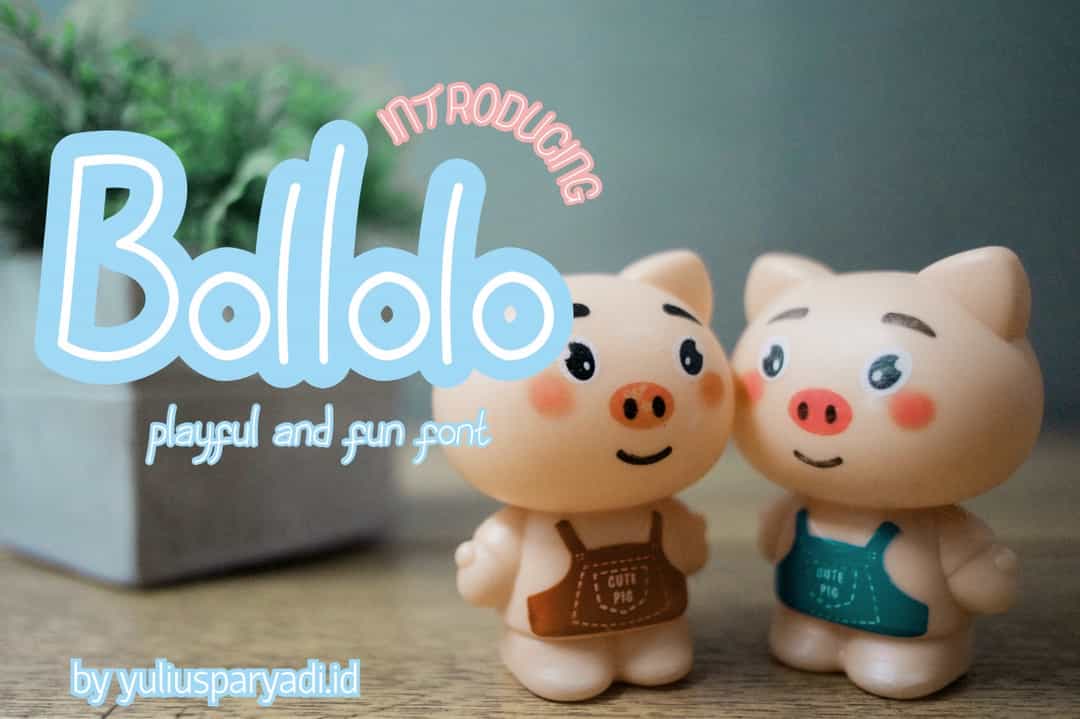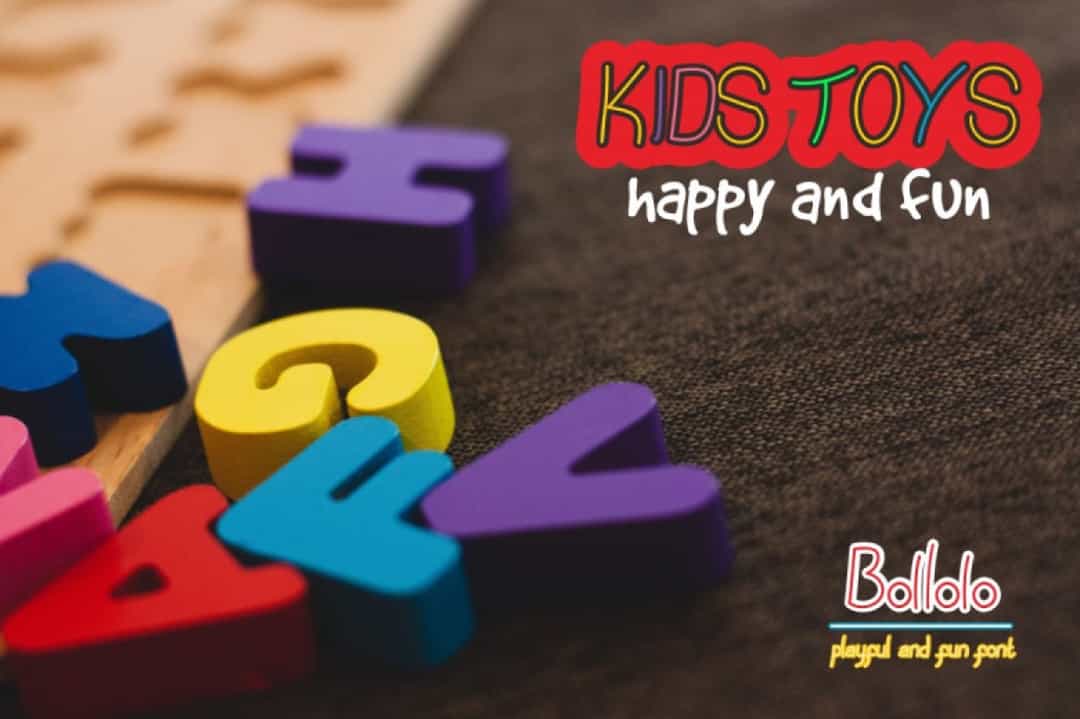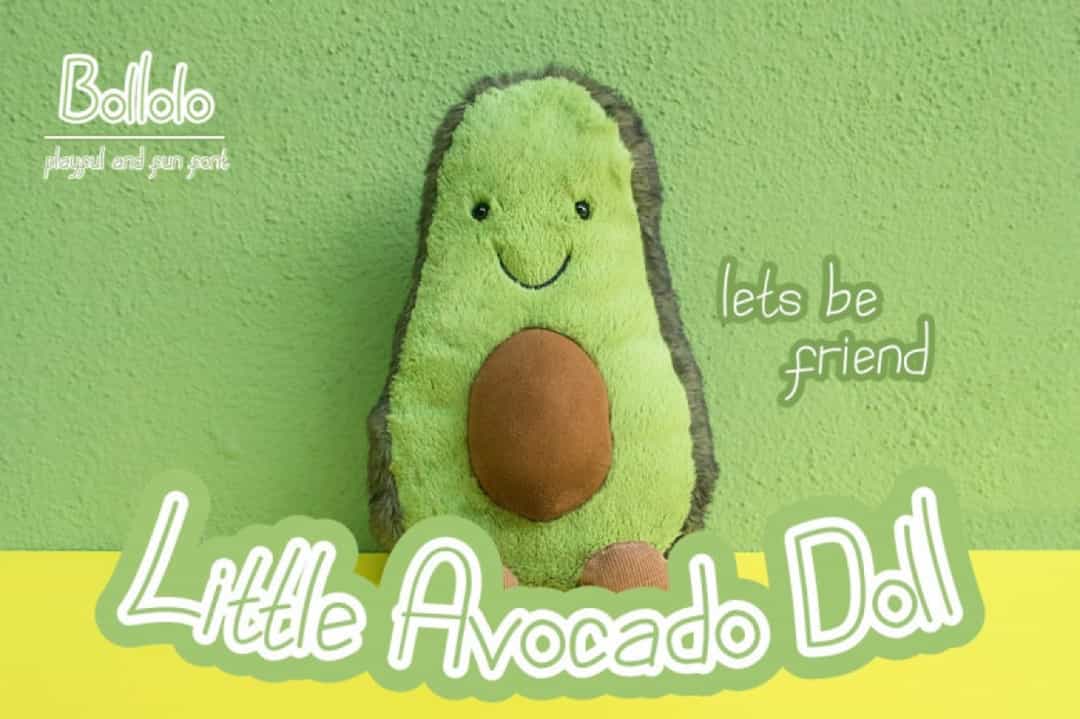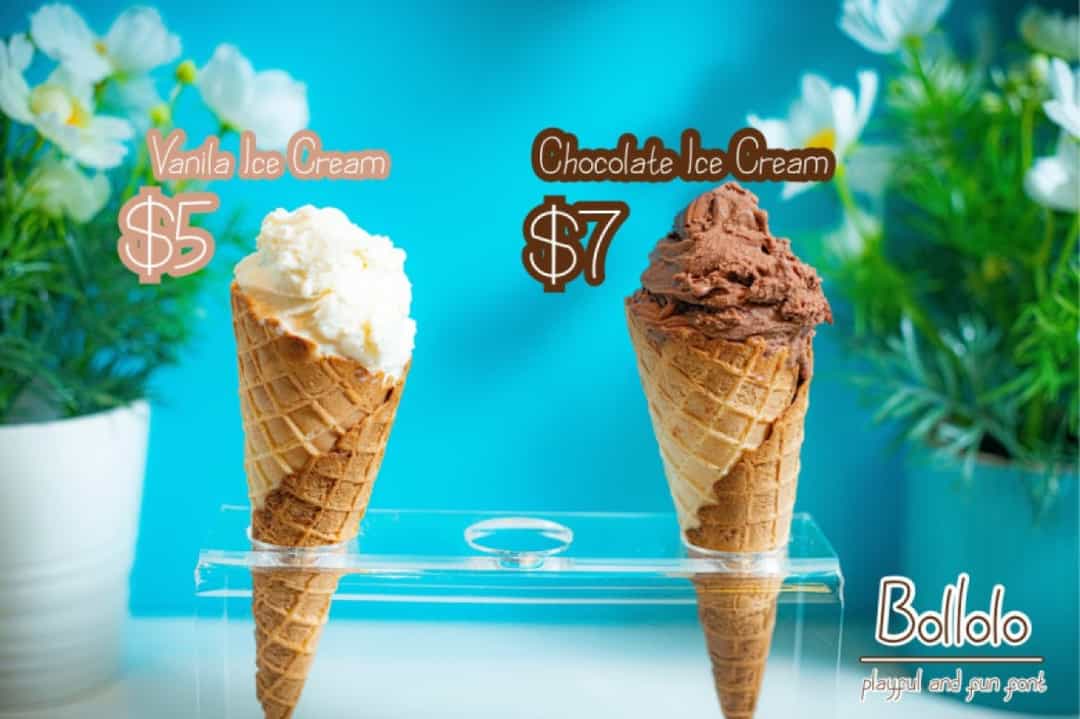
Bollolo is quite lively font and can be described as playful. The name is based on bolo-bolo which is translated as let us be friends; the design elements include further readability, attractiveness, and simplicity of use which makes it suitable for logos, quotes, children’s toys for story books, and other design projects.